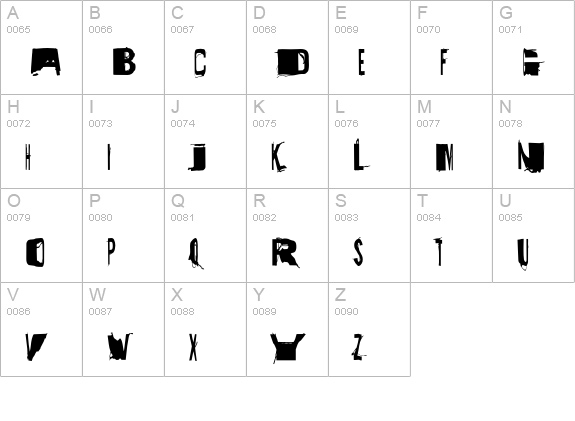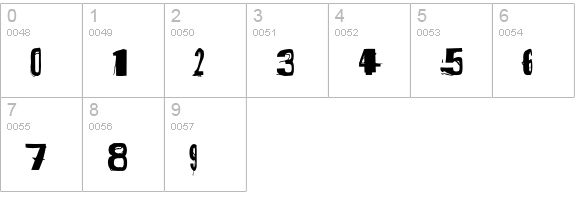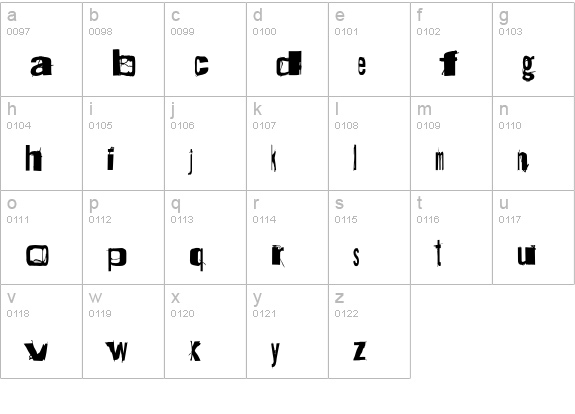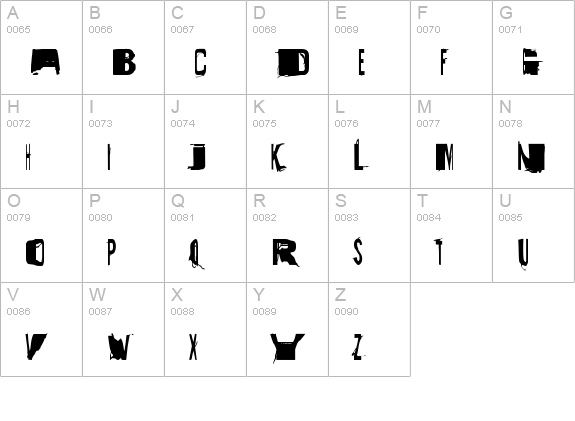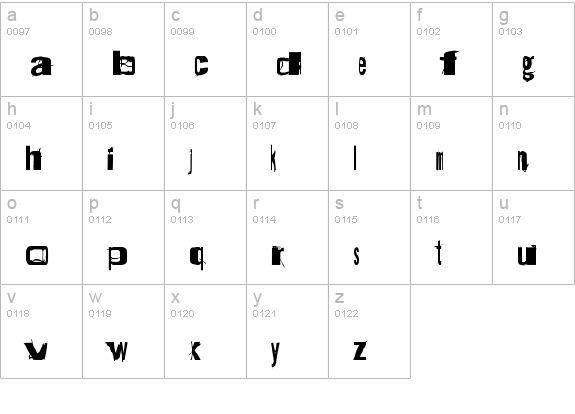
Angst-Mix Font Details
Introducing Angst-Mix font, a bold and dynamic typeface that captures the essence of raw emotions and edgy design. This unique font features a mix of sharp angles and distressed textures, creating a sense of unease and intensity in every letter. Ideal for projects that require a touch of drama and attitude, Angst-Mix font stands out with its striking appearance and modern aesthetic. What's even better is that Angst-Mix font is completely free to download at FontsMarket.com, making it accessible to all designers and creatives looking to add a touch of rebellious flair to their work. Whether you're working on a poster, logo, or branding project, Angst-Mix font is sure to make a bold statement and leave a lasting impression. Embrace the power of angst and download Angst-Mix font today to unleash your creativity like never before.